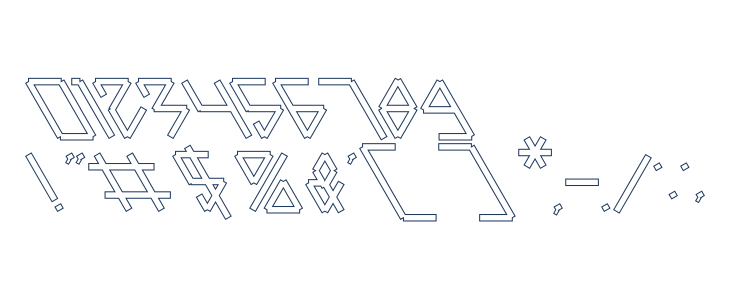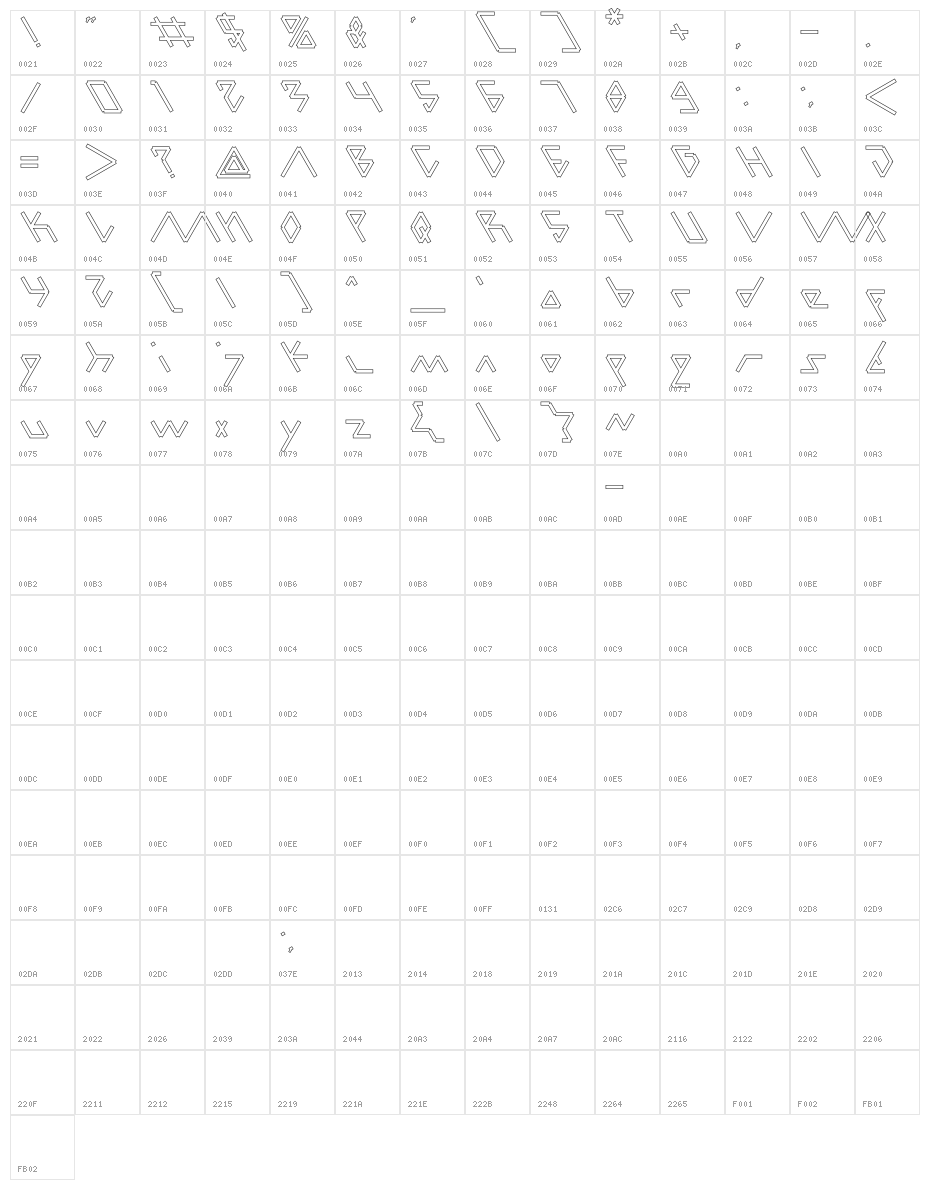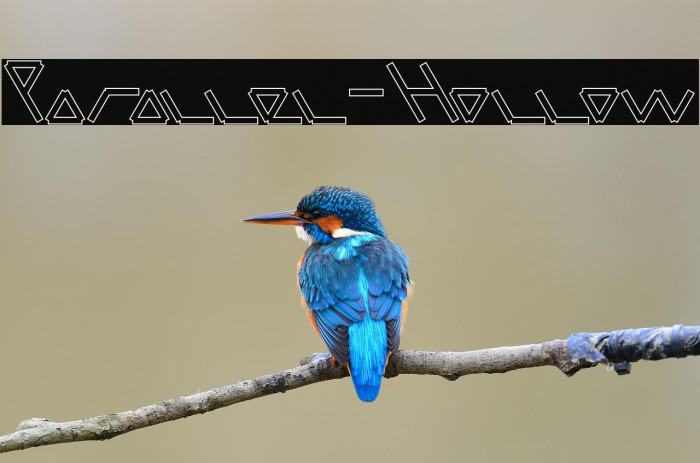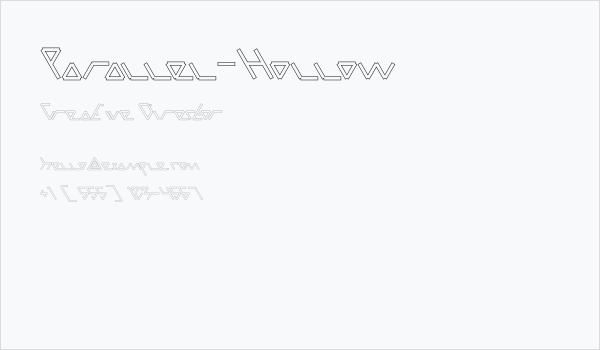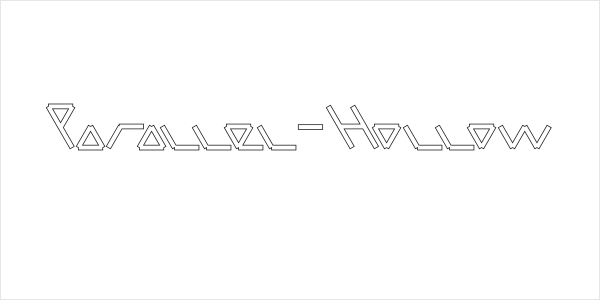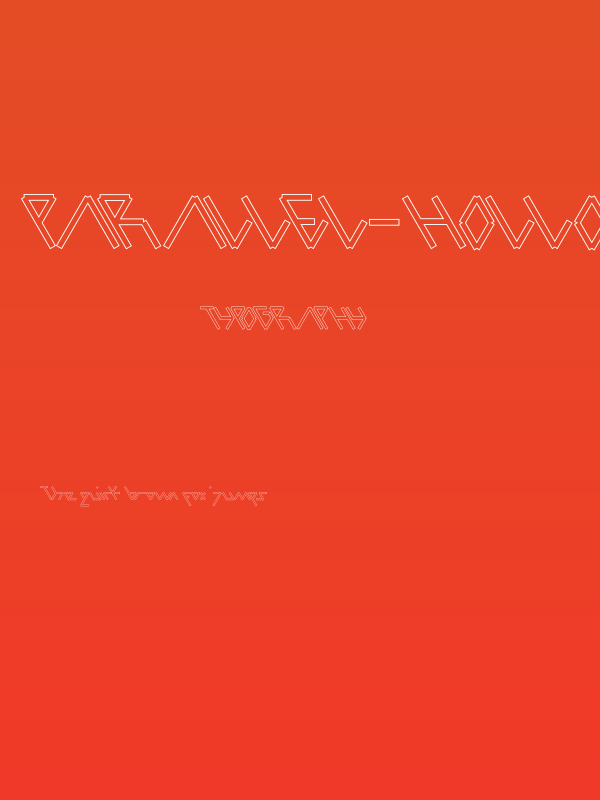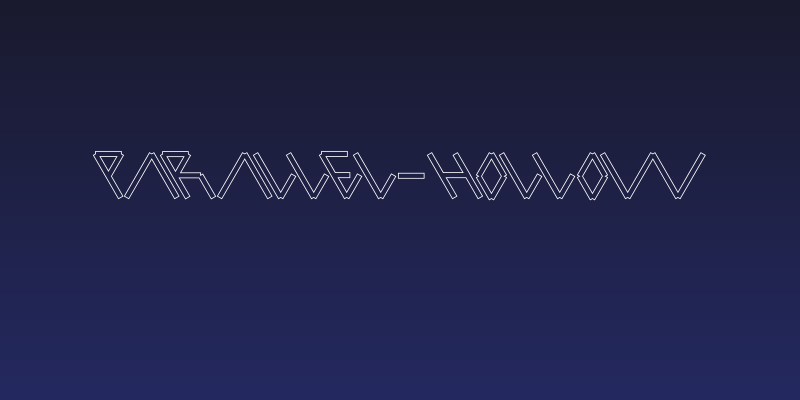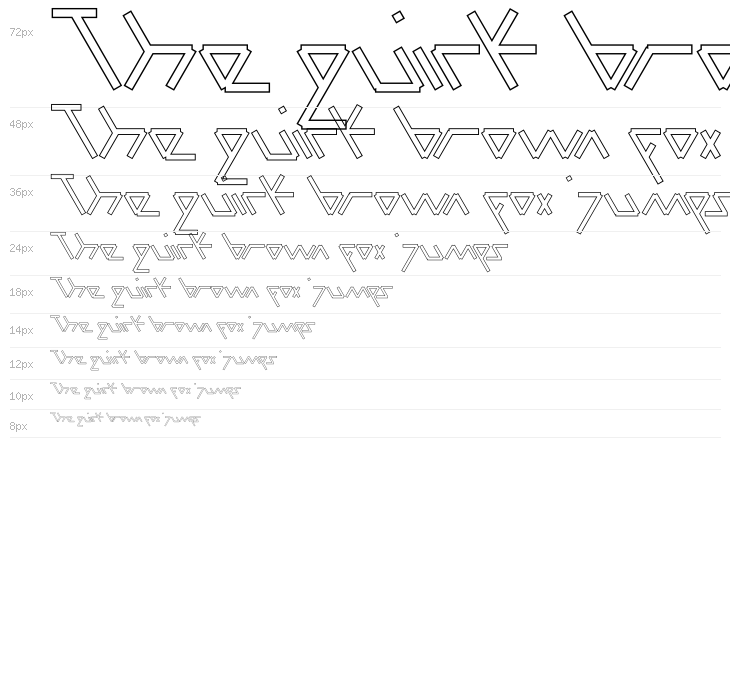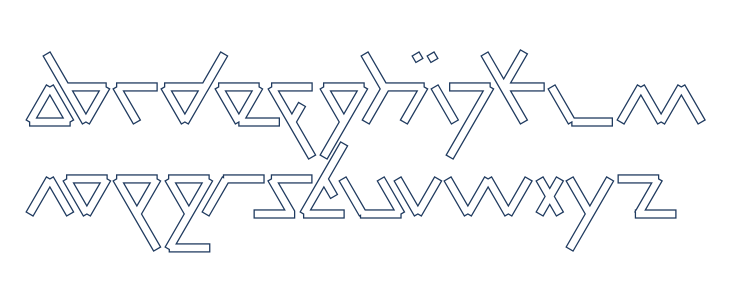
Parallel-Hollow Font
Parallel-Hollow Description
This font features a unique geometric design with hollow, parallel lines forming each character. The angular shapes and sharp edges give it a futuristic and edgy appearance. The uppercase and lowercase letters maintain a consistent style, with each character constructed from straight lines and angles. Numbers and special characters follow the same design principles, ensuring uniformity across the font. The hollow nature of the characters adds a distinctive touch, making it stand out in any design project.
Overall StyleFuturistic
Use CaseLogos, Headlines, Posters
Proposed ProjectsIdeal for sci-fi themed designs, modern posters, tech branding, and digital artwork.